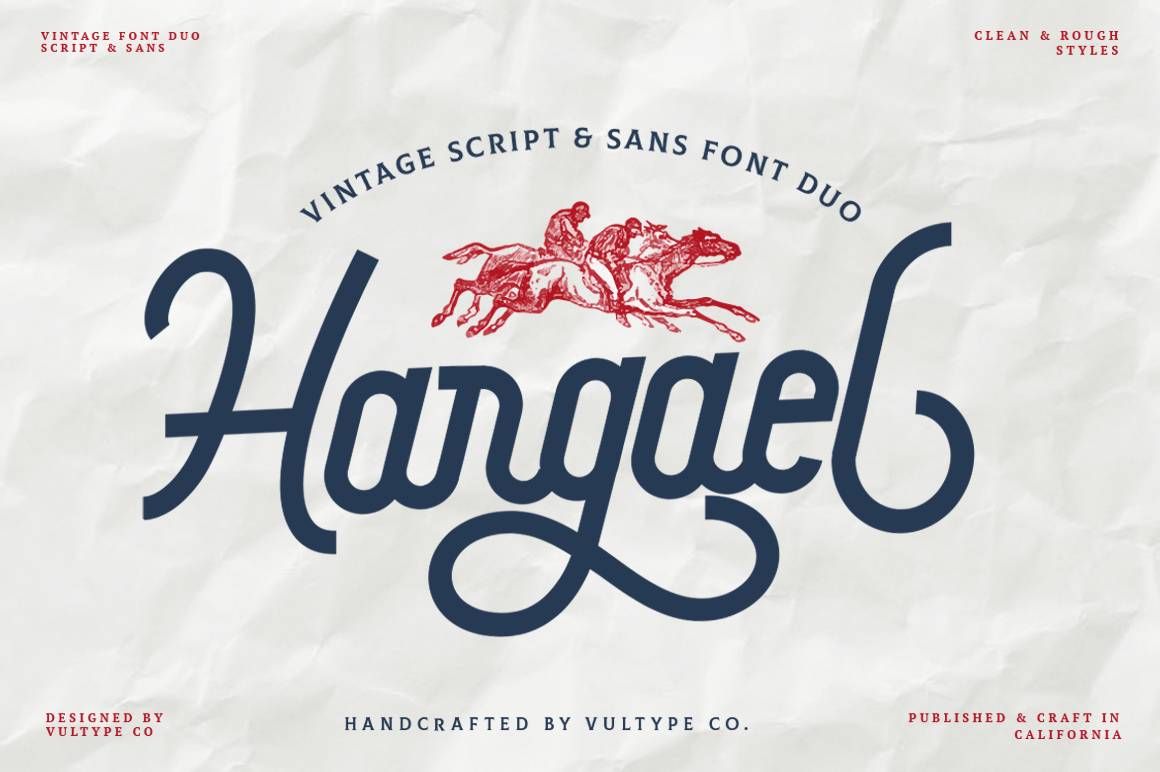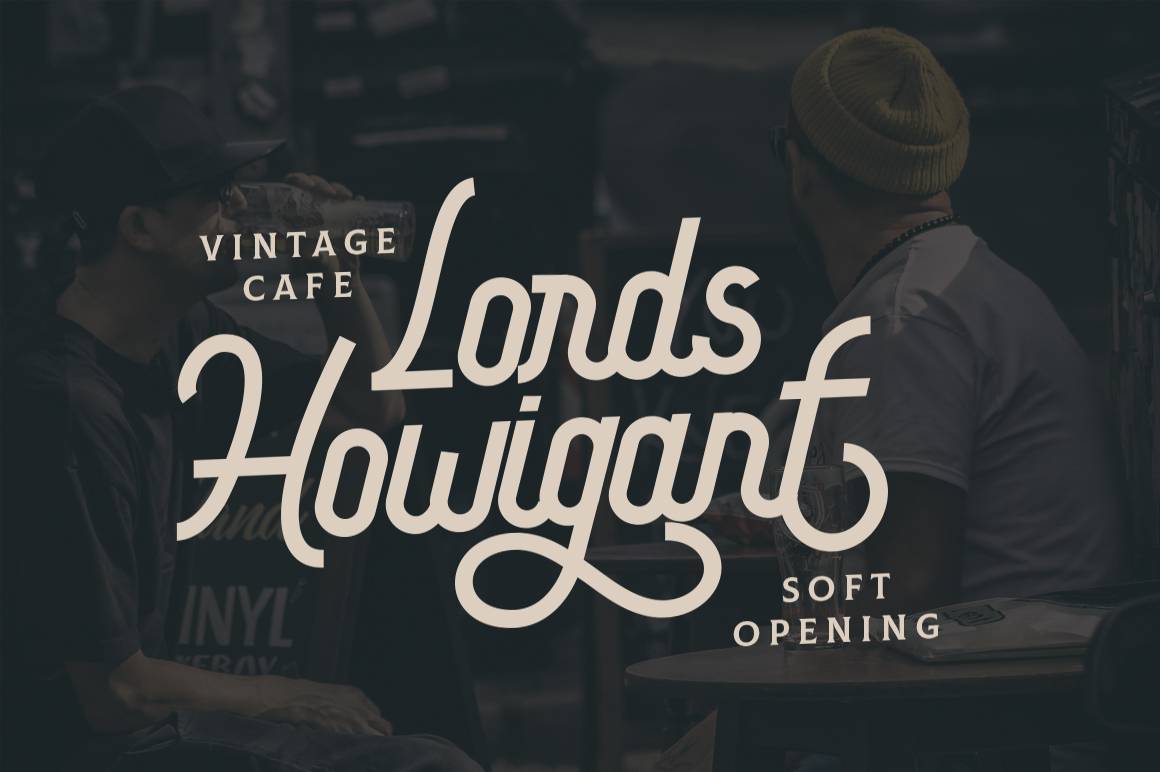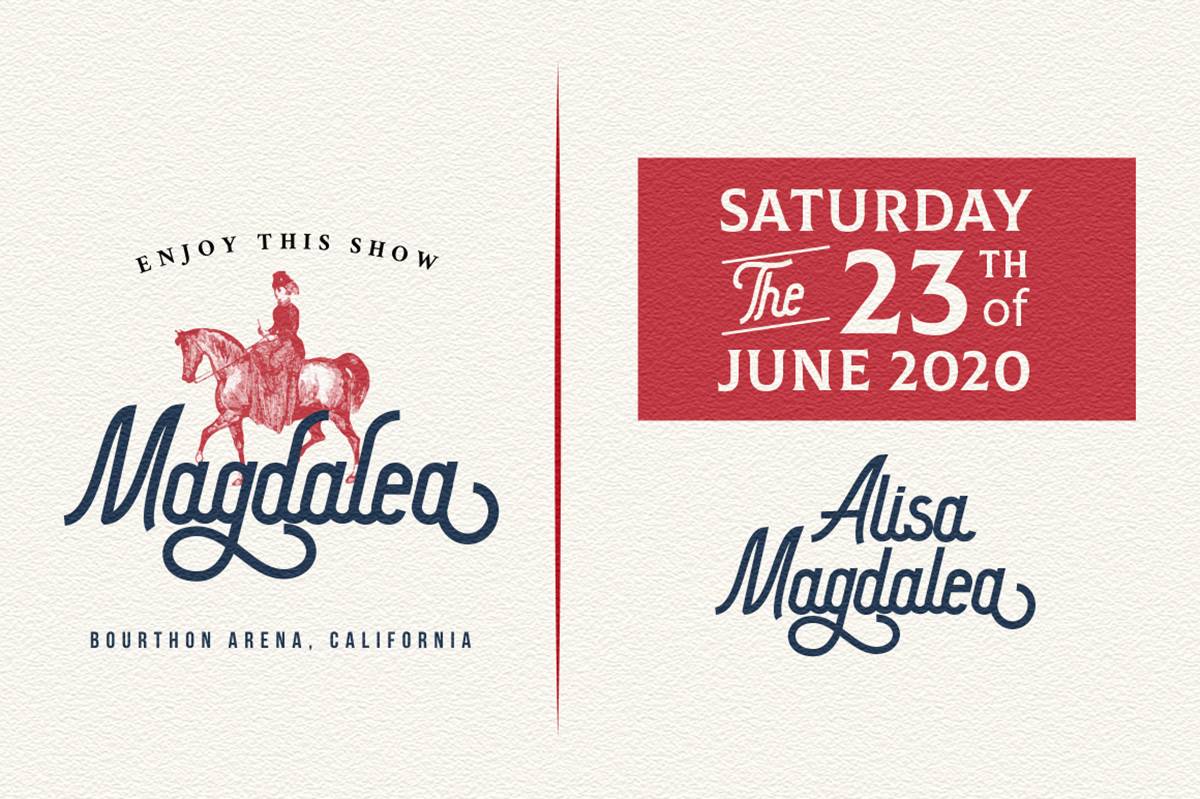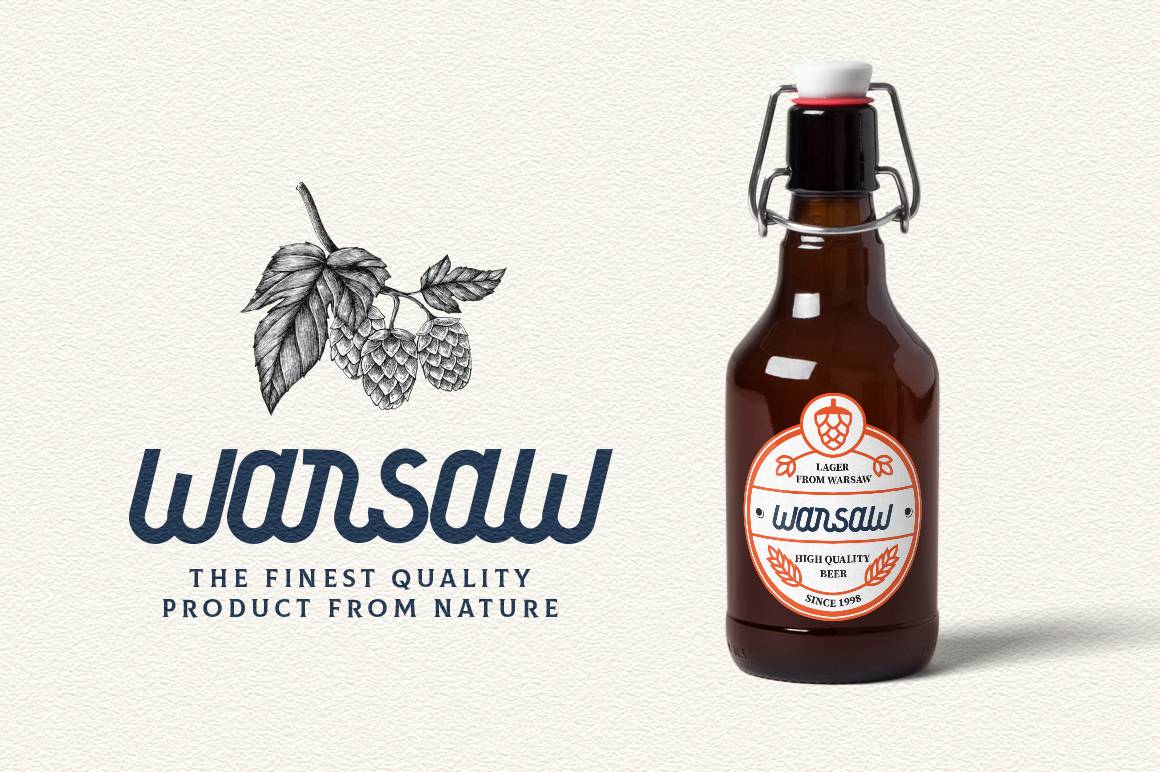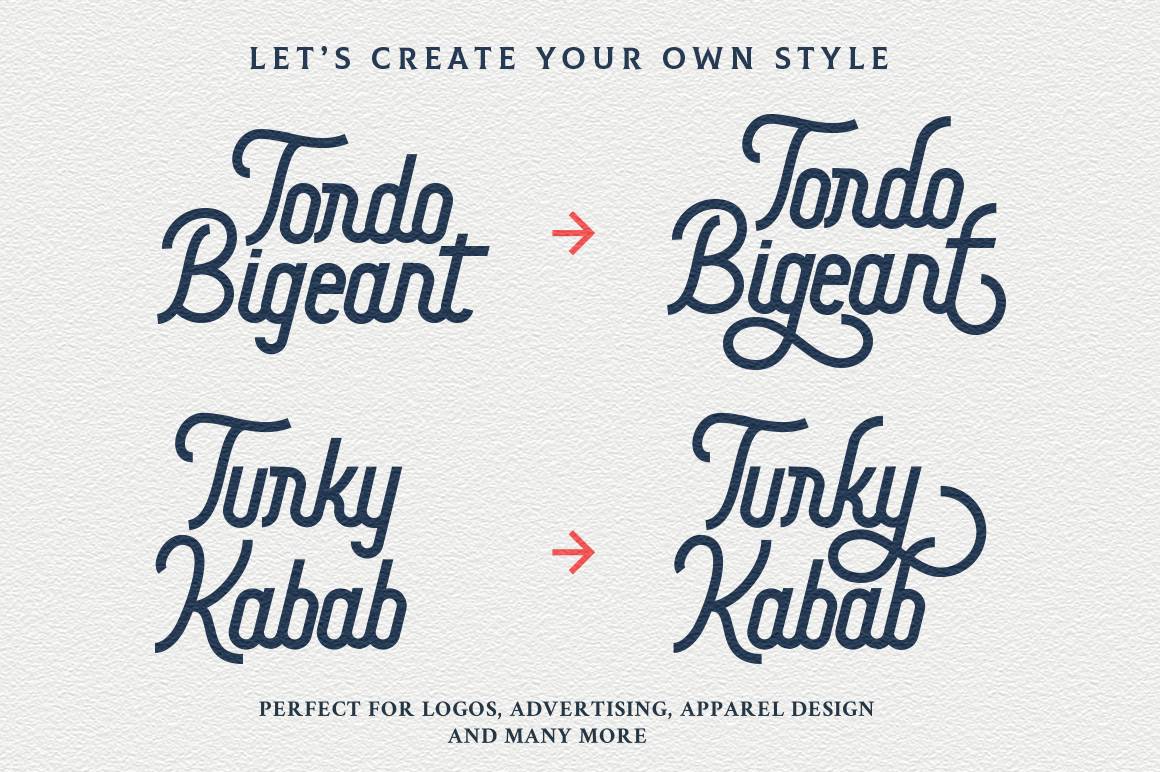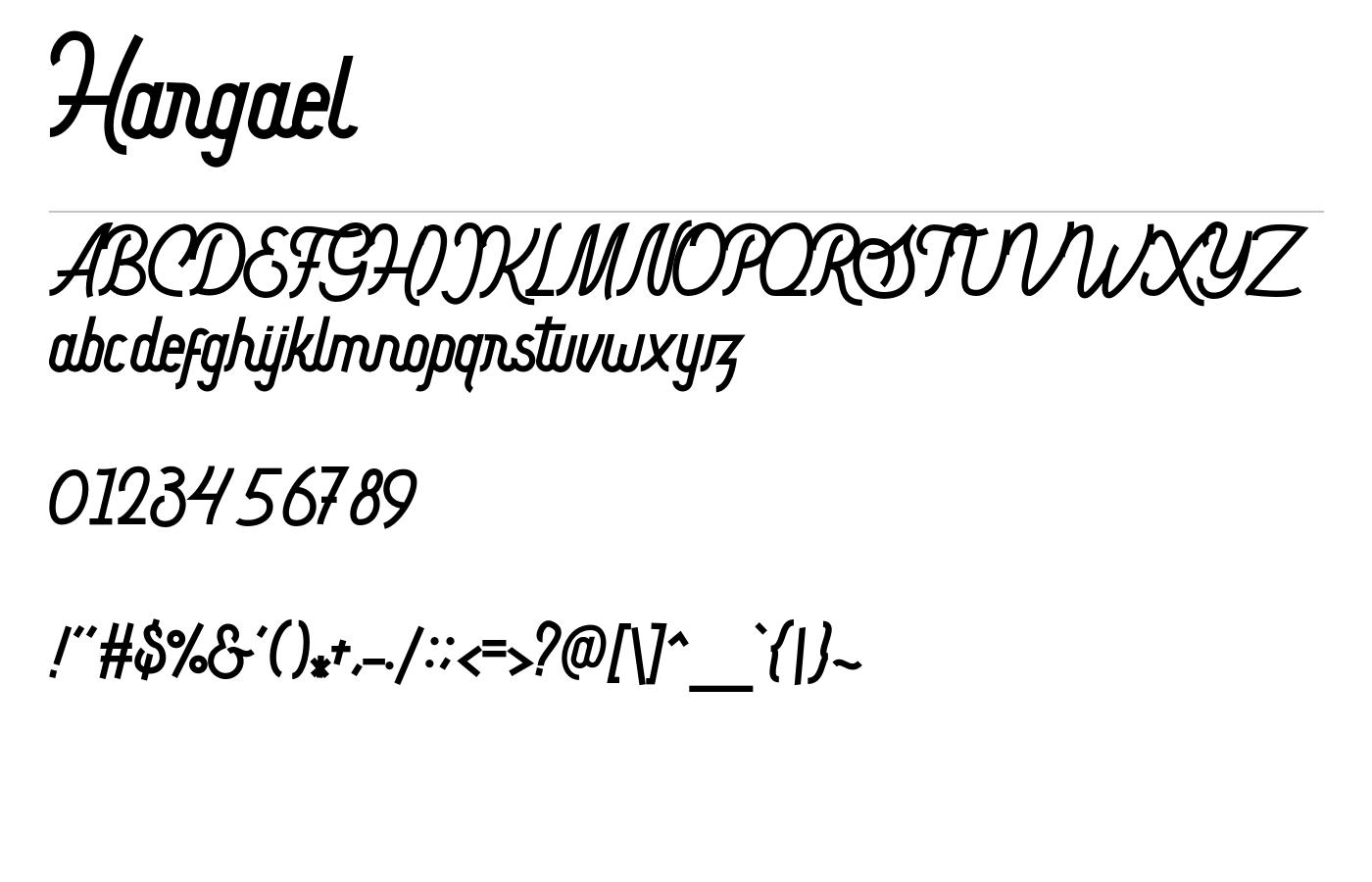
Hargael is a stylish script font with a modern, elegant feel characterized by its smooth, flowing letterforms and slight slant, giving it an energetic yet refined look. Its medium weight and moderate contrast create a balanced readability, making it ideal for branding, logos, and headlines that seek a sophisticated and contemporary touch. This font works well for fashion, lifestyle, and creative projects where a sleek, personal voice is desired.
Hargael Font
About Hargael Font
| Font family | Hargael Font |
| Release date | 2019-11-11 |
| Designer | Chandra ~ Vultype Co |